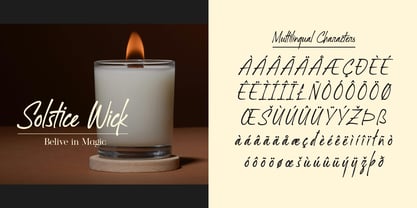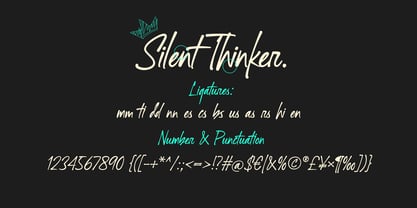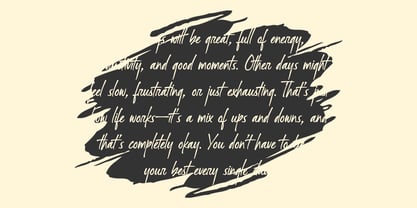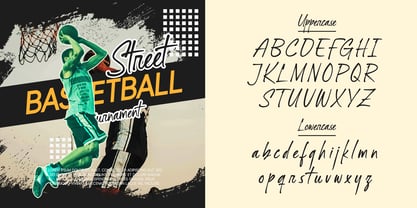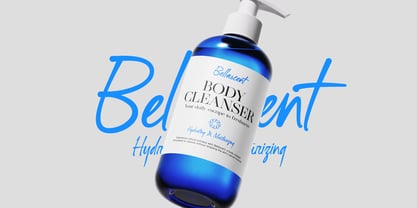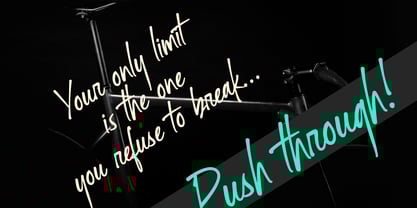
Silent Thinker
by Lemonthe
The Silent Thinker Font Family was designed by Dwi Ahidian and published by Lemonthe. Silent Thinker contains 1 styles.
Silent Thinker is a handwritten font that combines swiftness and expression. With swift strokes and dynamic letterforms, this font conveys a spontaneous, energetic, yet elegant feel. It is perfect for branding, motivational quotes, product packaging, social media designs, and creative projects that require a natural and characterful handwritten touch.
About Lemonthe
"Lemonthe is a type foundry operated by Dwi Ahidian, a letter enthusiast who enjoys calligraphy and loves experimenting with letter forms. Lemonthe provides a captivating collection of typefaces, each carrying a creative and unique experimental touch, meticulously crafted by hand. Dedication to detail ensures that some typefaces emanate a deep and serious aesthetic, while others showcase a more playful and creative side."